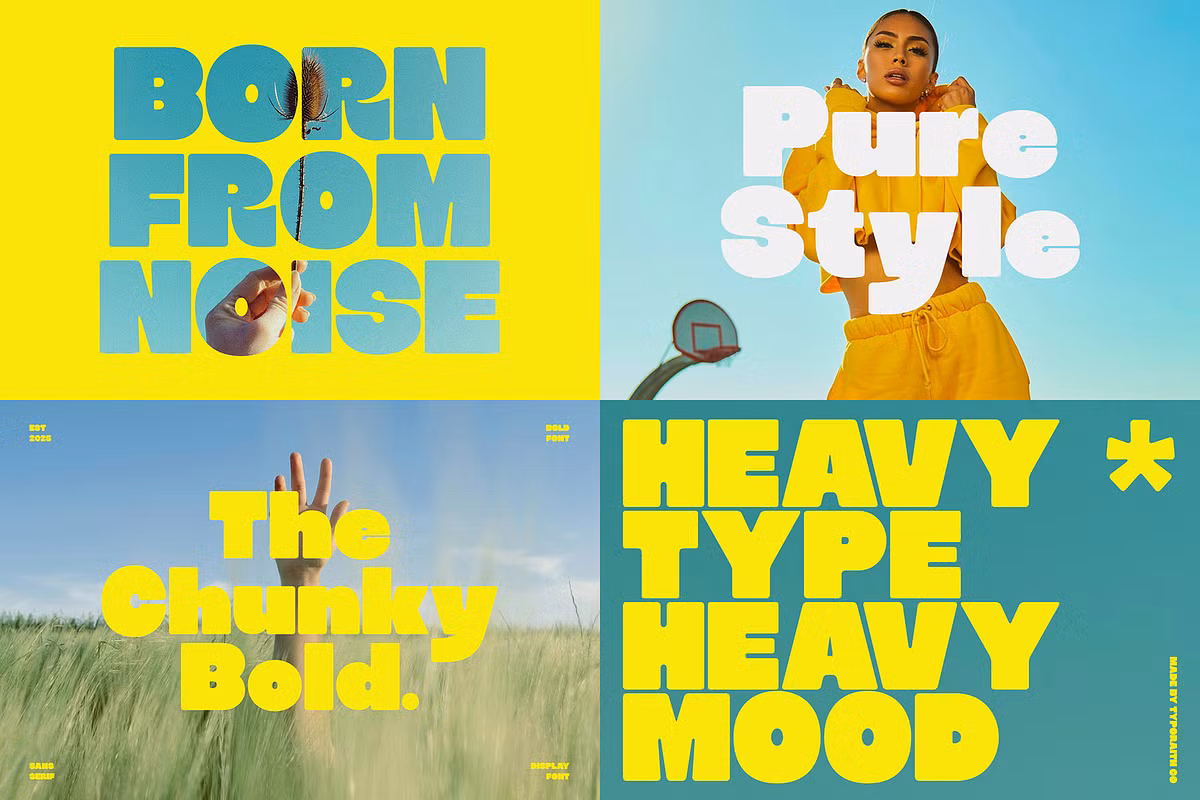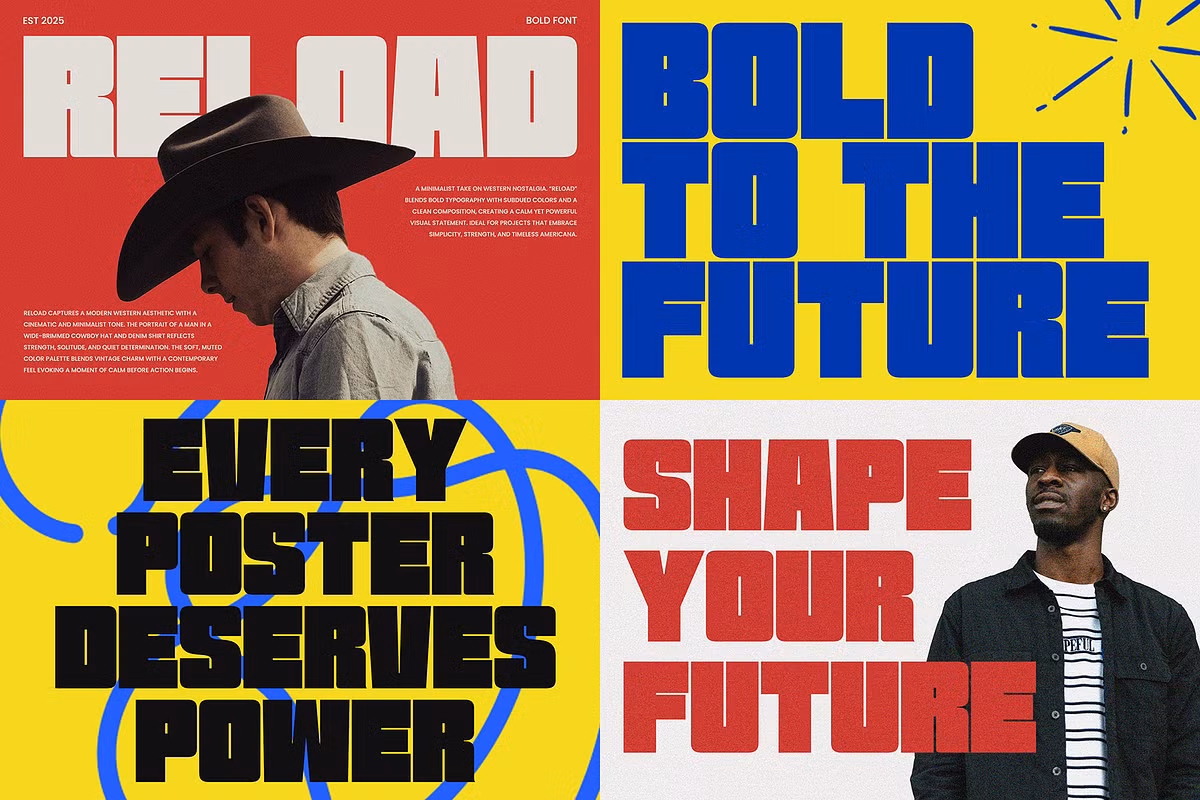
Display Font Bundle: Premium Collection of 11 Bold Typography Styles
Take your designs to the next level with the Display Font Bundle – it’s a fantastic collection of 11 top-notch display fonts that give you 20 complete font families to play with. If you’re a designer, building a brand, or just someone who loves to create, this bundle is perfect for you. It’s all about giving you bold, eye-catching typography that can fit with lots of different styles and moods.
With the Display Font Bundle, you get to try out a wide range of typefaces that will make any project look amazing. Whether you’re working on something big or small, these fonts will help you make a statement. They’re great for adding some personality to your work and making it stand out. So, if you want to elevate your creative projects and make them look professional, the Display Font Bundle is definitely worth checking out. It’s a great way to add some extra flair to your designs and take them to new heights.
The Display Font Bundle is really cool because it has a lot of different font styles. You can find bold fonts that stand out, and also softer fonts that look old-fashioned and rounded. This means you can pick a font that fits the feeling and message you want to get across in your project.
So, if you’re making a brand look modern, a poster that looks like it’s from the past, or an online ad that grabs people’s attention, the Display Font Bundle has lots of fonts to choose from. It’s great for finding the perfect font to match what you’re trying to say.
Bold Sans-Serifs
The fonts in the Display Font Bundle really stand out with their clean lines and bold look. They’re great for things like headlines, logos, and any design elements where you want to grab attention.
The geometric shapes and consistent thickness of the lines make them easy to read and really pack a visual punch, which makes them perfect for using on screens or in print.
Retro Rounded Displays
If you want to give your project a softer, more playful feel, the rounded display fonts in this bundle are a great choice. They have a unique charm that’s both nostalgic and modern, making them perfect for creative projects that need to grab attention in a warm and friendly way.
Whether you’re promoting an event or designing product packaging, these retro rounded displays can help you come across as approachable and inviting. They’re a great way to add some personality to your design and make it stand out.
With their rounded edges and classic feel, these fonts are sure to bring a sense of warmth and friendliness to your project, making it more relatable and engaging to your audience.
Character Sets and Features
Each typeface in the Display Font Bundle is designed with meticulous attention to character shape, spacing, and visual rhythm. This careful craftsmanship ensures that every letter feels balanced and harmonious, which is crucial for maintaining professionalism in design work.
The Display Font Bundle is really useful because it has a lot of different character sets. This means it can be used for lots of languages and it also includes special characters. For companies that work all around the world or for projects that need to be in multiple languages, this is especially helpful.
You can use it in lots of different situations because it has things like accents, punctuation, and symbols.
Optimized Kerning and Spacing
The fonts in this bundle are really well-made, with careful attention to the space between letters, so your text looks great. This means you can get good results quickly, without spending a lot of time tweaking things.
With these fonts, you don’t have to worry about letters being too close or too far apart – everything is designed to look perfect.
The Display Font Bundle is really versatile, which makes it perfect for all sorts of creative projects. Let’s take a look at some interesting ways you can use it:
- Branding Packages: Create a cohesive branding identity with logos, business cards, and marketing materials that utilize the bold typography styles from the Display Font Bundle.
- Merchandise Design: From T-shirts to tote bags, the unique character of these fonts can elevate your merchandise, making it stand out in a crowded market.
- Event Promotions: Whether it’s for a concert, festival, or conference, the expressive typefaces can help capture the essence of your event and attract attendees.
Make your social media posts really stand out by using the amazing styles in the Display Font Bundle. This will help you create posts that grab people’s attention and make them want to share with others. With these eye-catching fonts, you can make a big impact and get more engagement on your social media posts.
So, whether you’re building a brand from scratch, designing cool merchandise, or making promotional materials that really pop, the Display Font Bundle has got you covered – it’s the perfect tool for creating typography that really grabs people’s attention and gets your message across.
With this bundle, you can create stunning designs that will make your work stand out, and that’s what it’s all about – making a lasting impression.